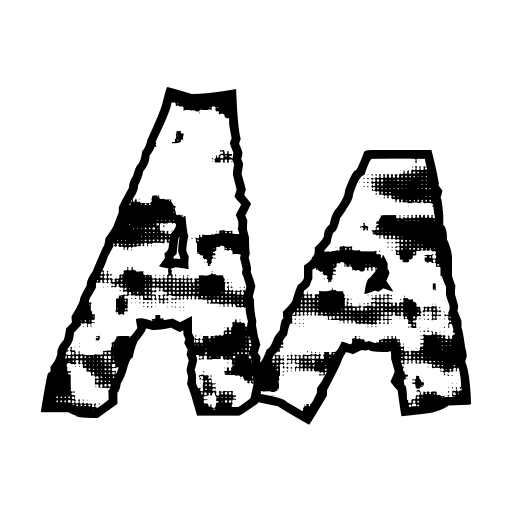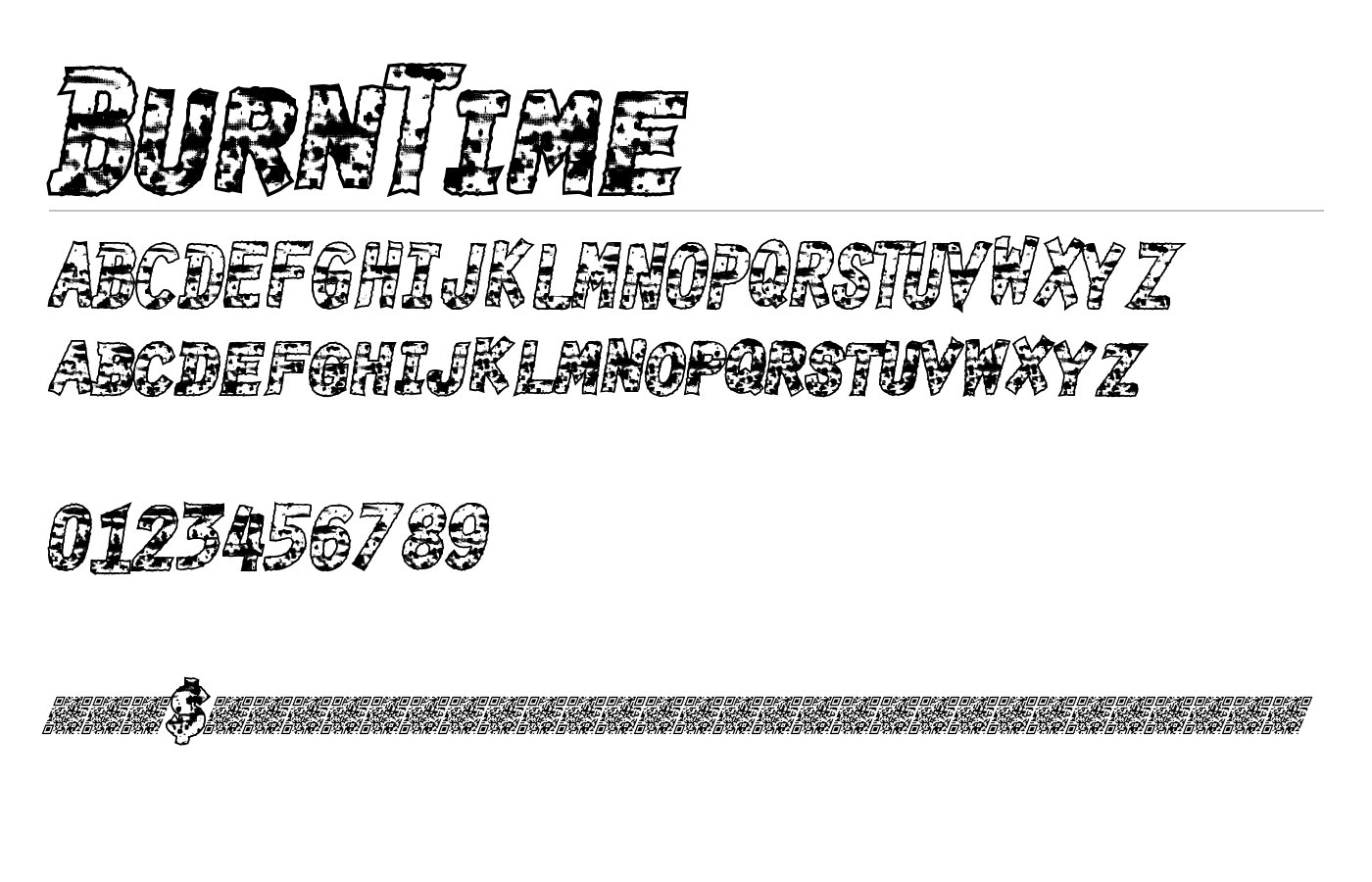
BurnTime is a bold, distressed display font with an edgy, textured style that mimics burnt or eroded surfaces. Its heavy weight and irregular, rough letterforms make it ideal for striking headlines, posters, or branding that seeks a rugged, rebellious, or vintage vibe. This font works best where bold impact and a handcrafted feel are desired rather than for readability in long texts.
BurnTime Font
About BurnTime Font